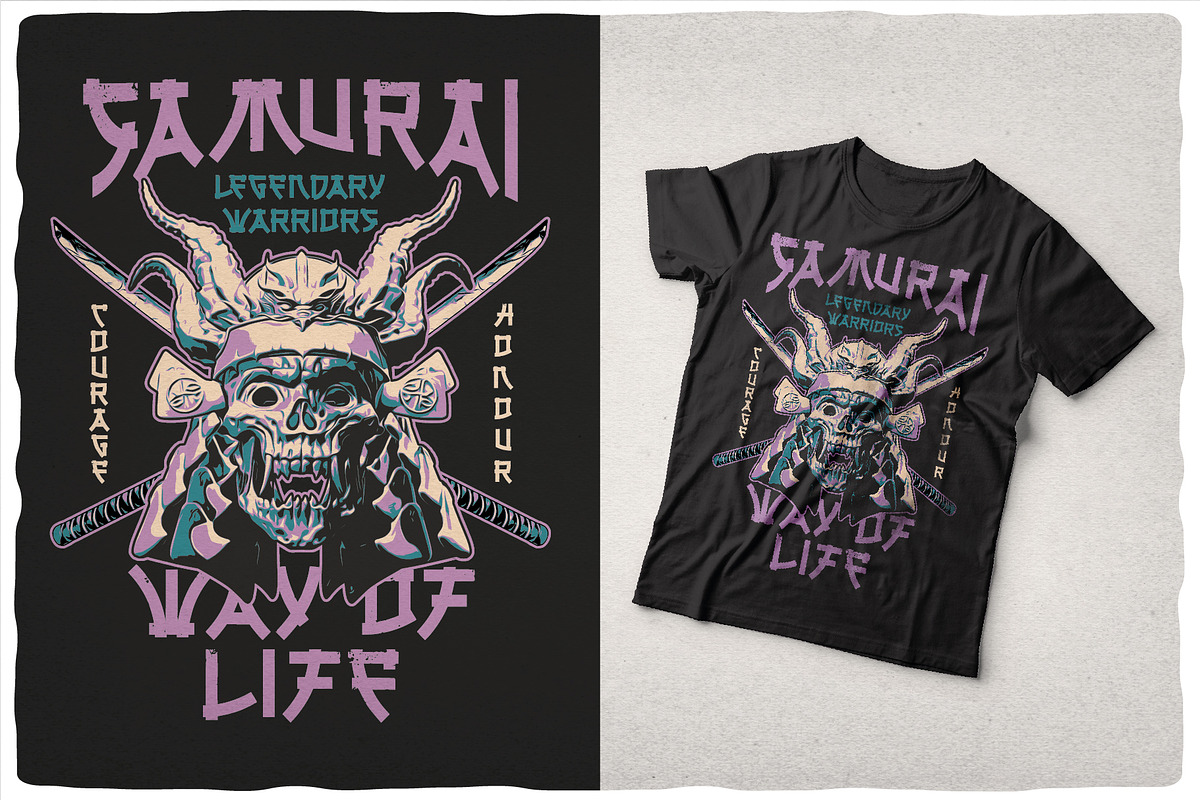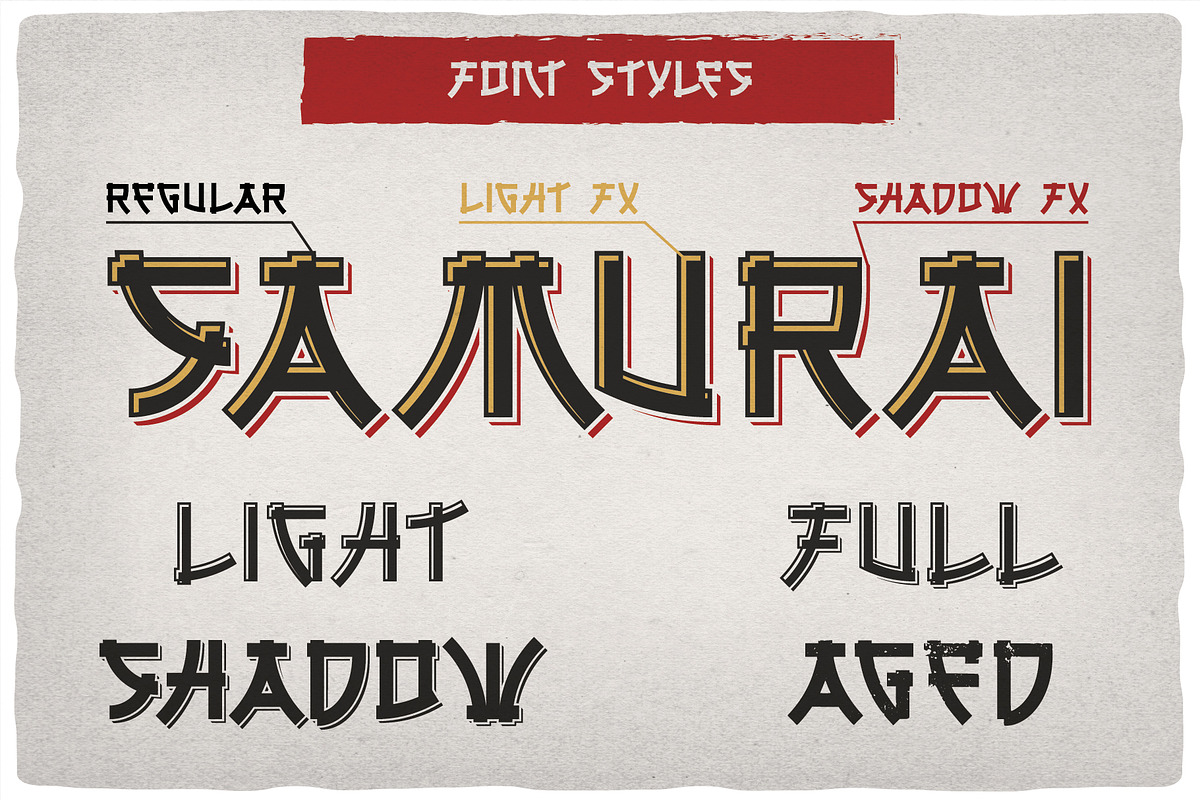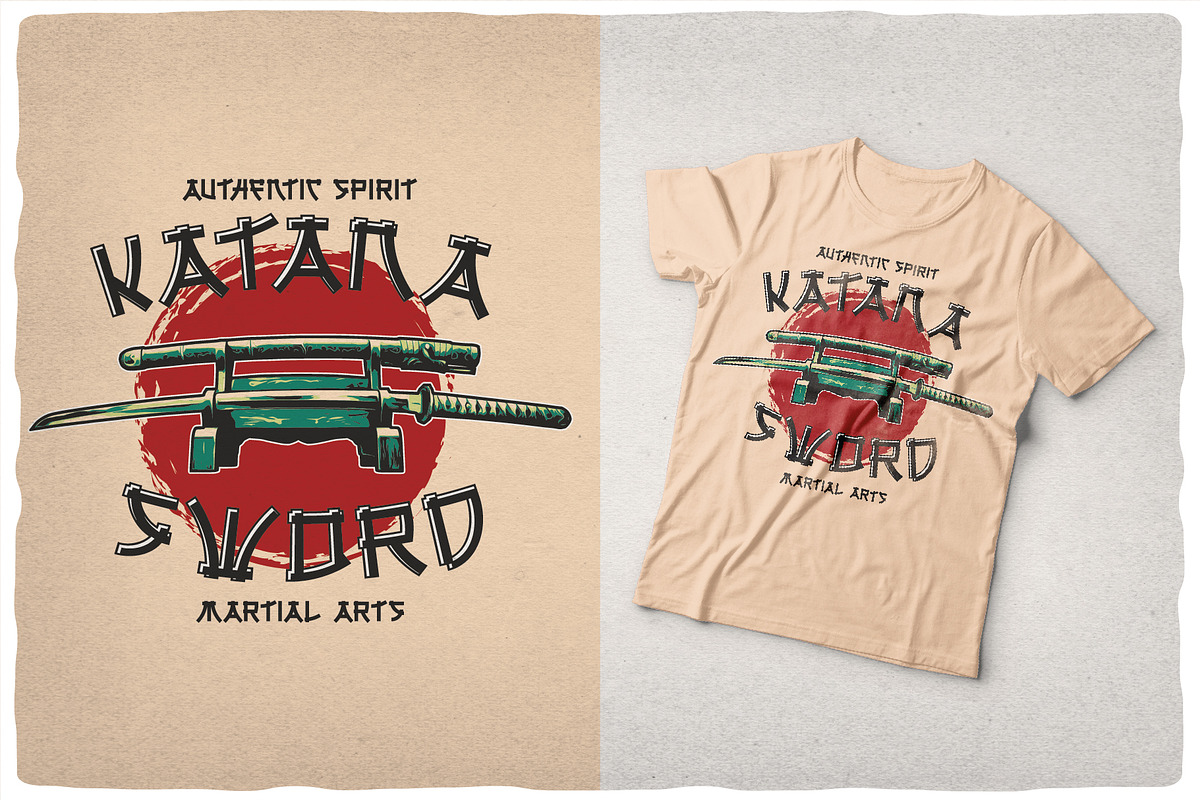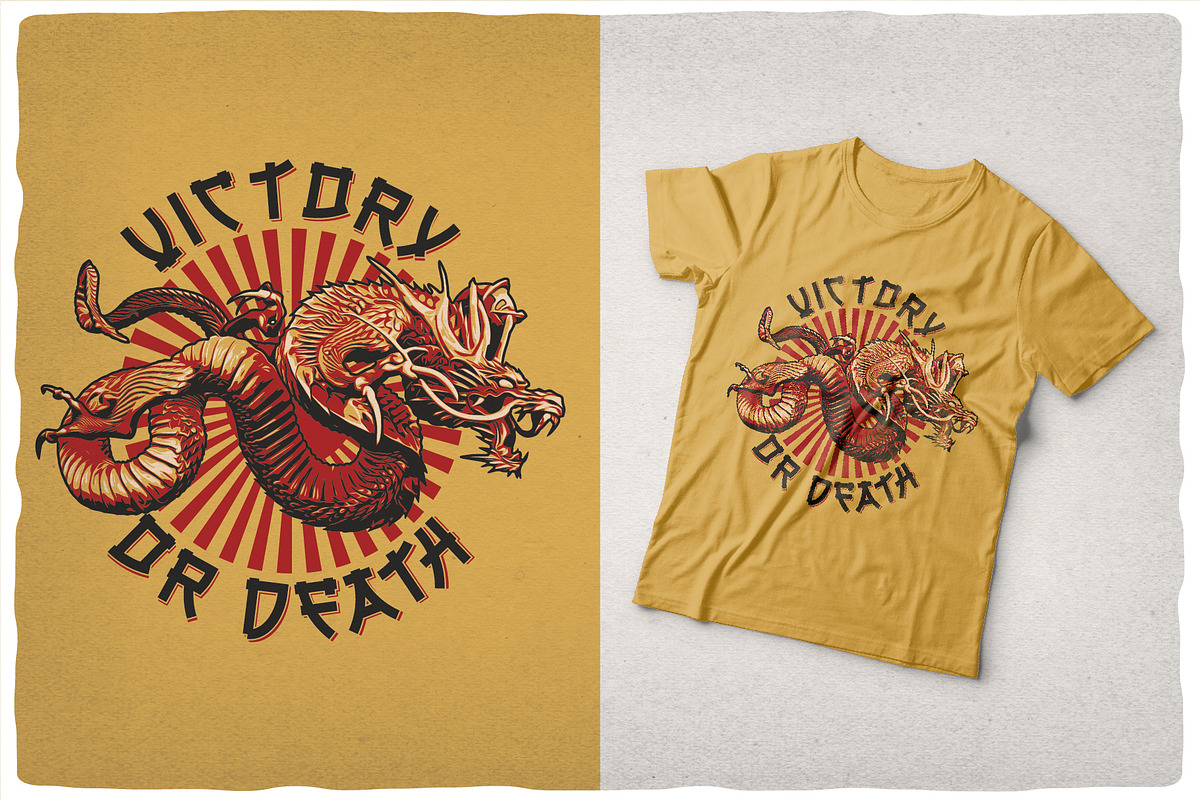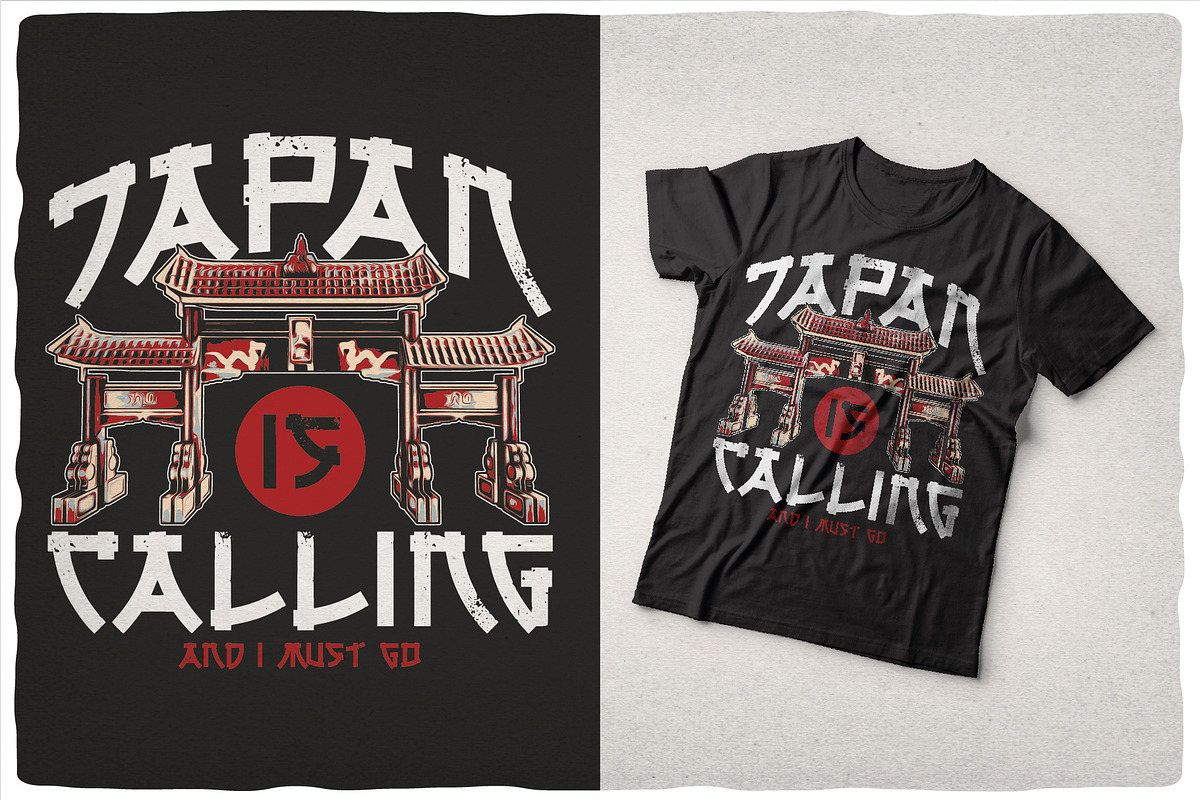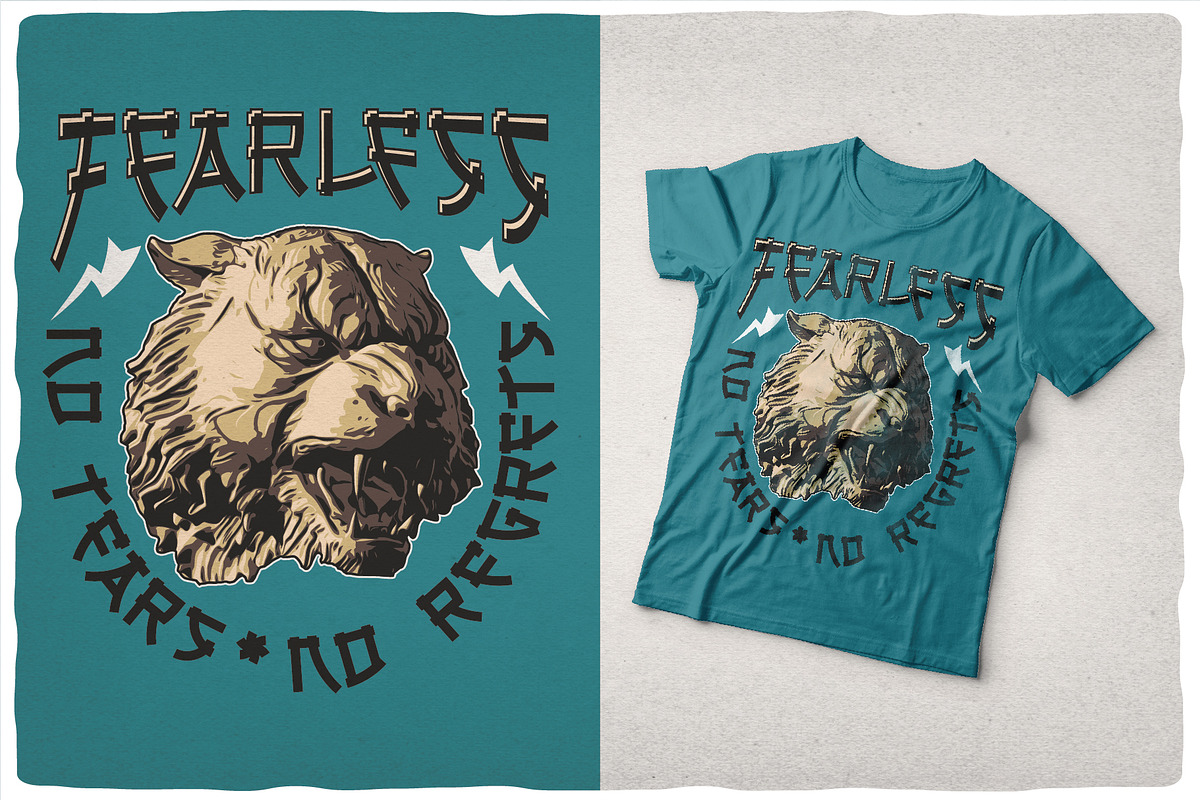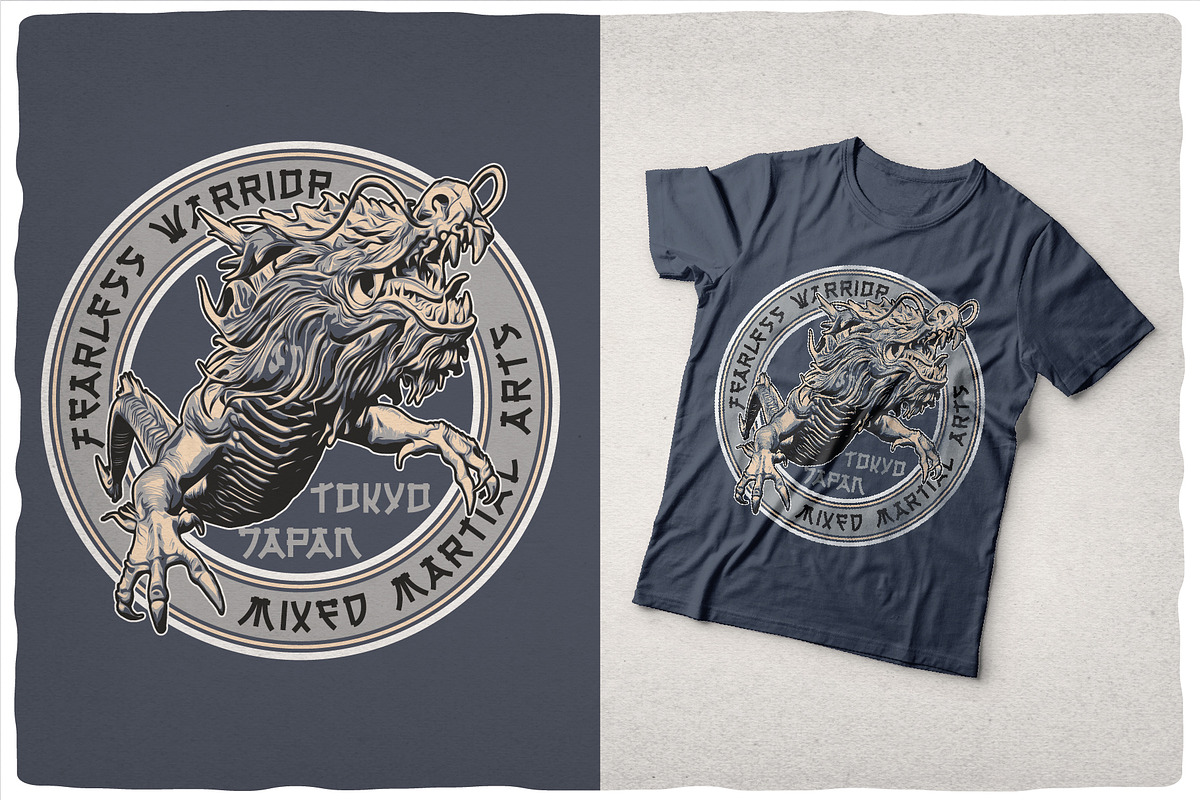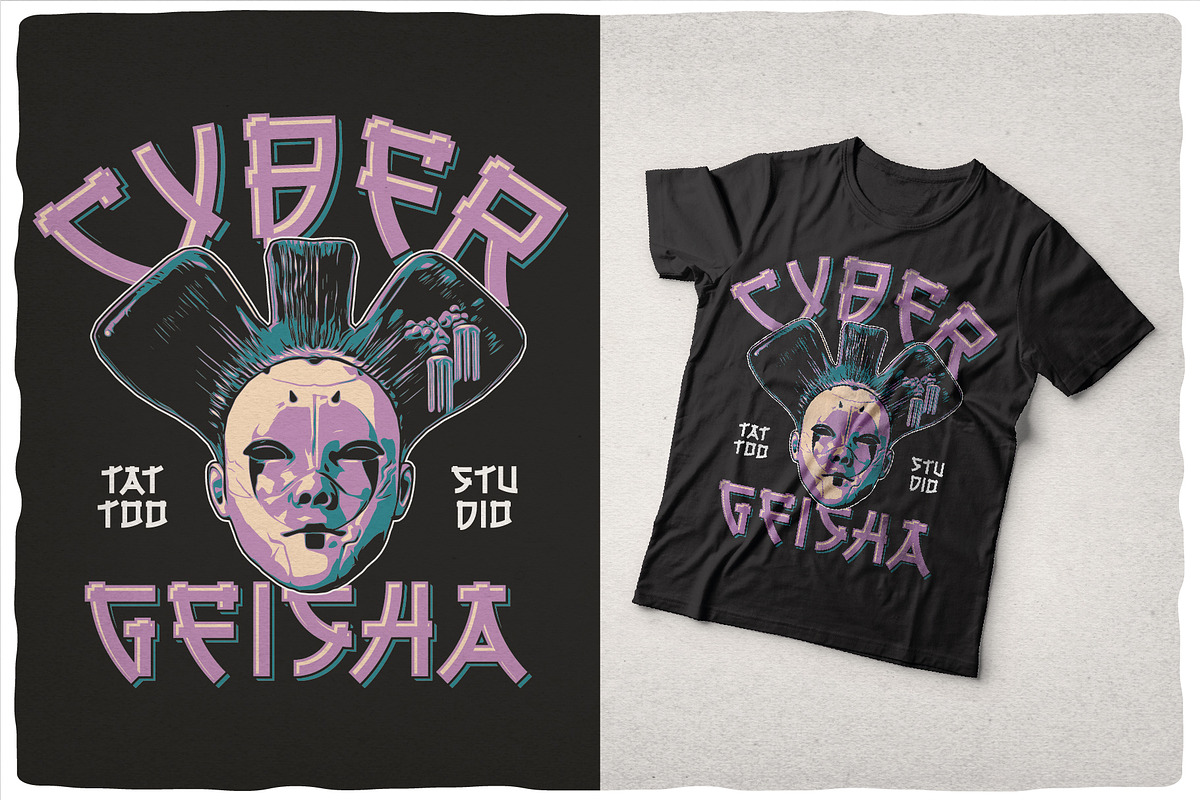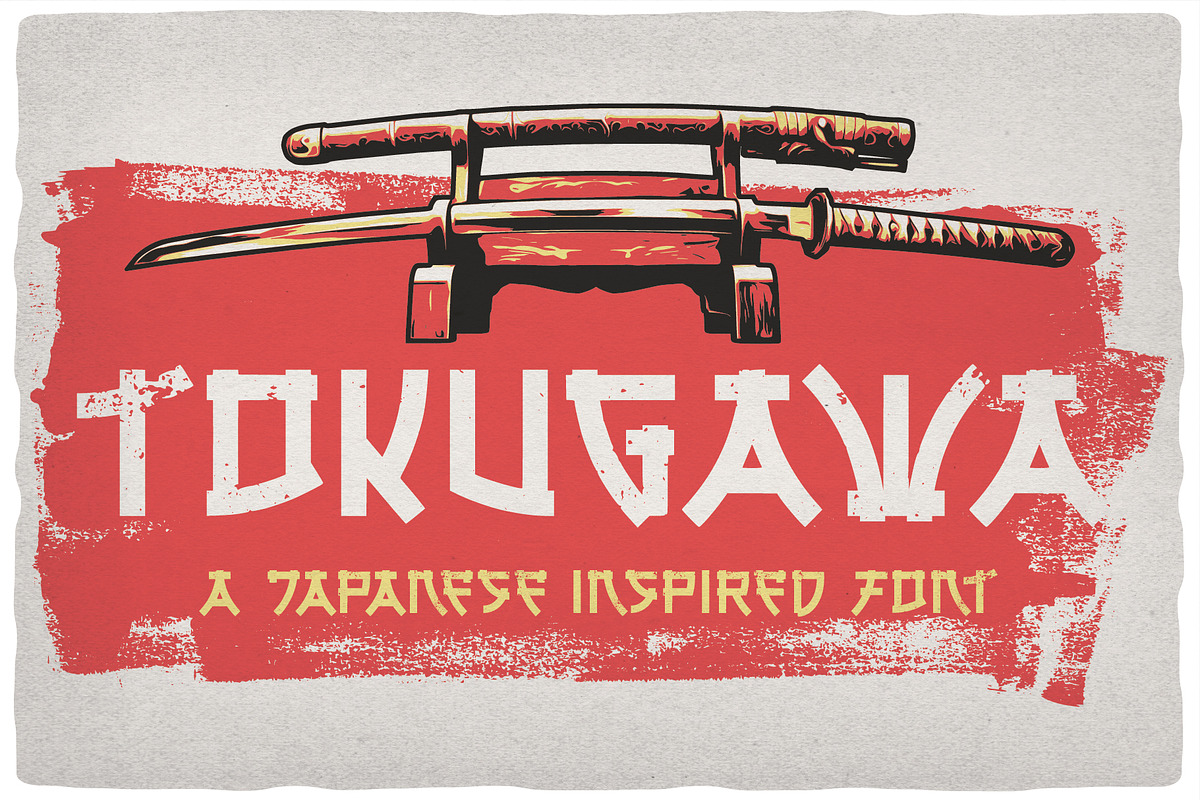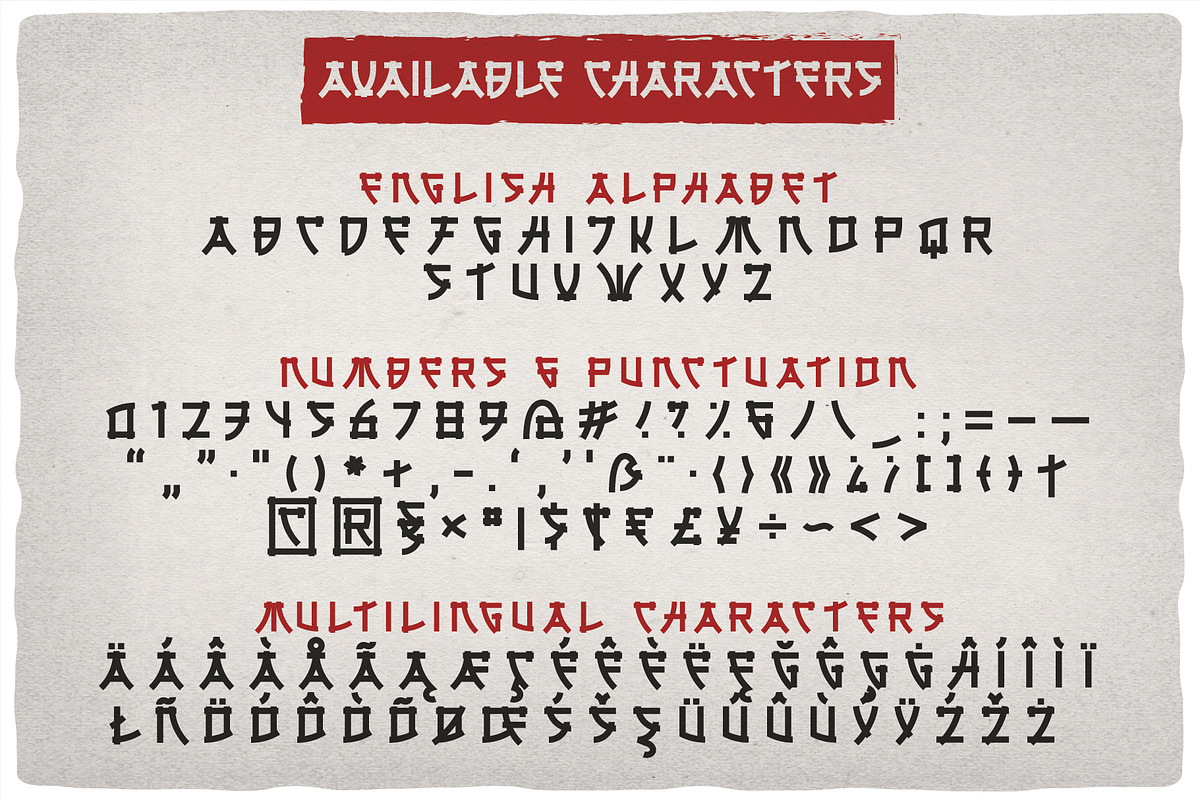
Tokugawa
Introducing a vintage Japanese style all caps font named Tokugawa. This font was inspired by Japanese hieroglyphs. All available characters you can see at the screenshots. This font has six styles: Regular, Shadow, Light, Aged, Shadow FX and Light FX. This font will look good on any retro and Japanese styled designs like a poster, T-shirt, label, logo, etc.
- A lot of additional symbols and multilingual support